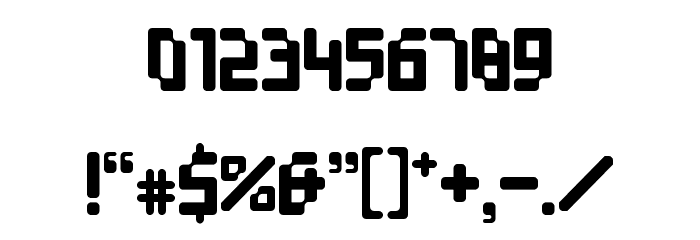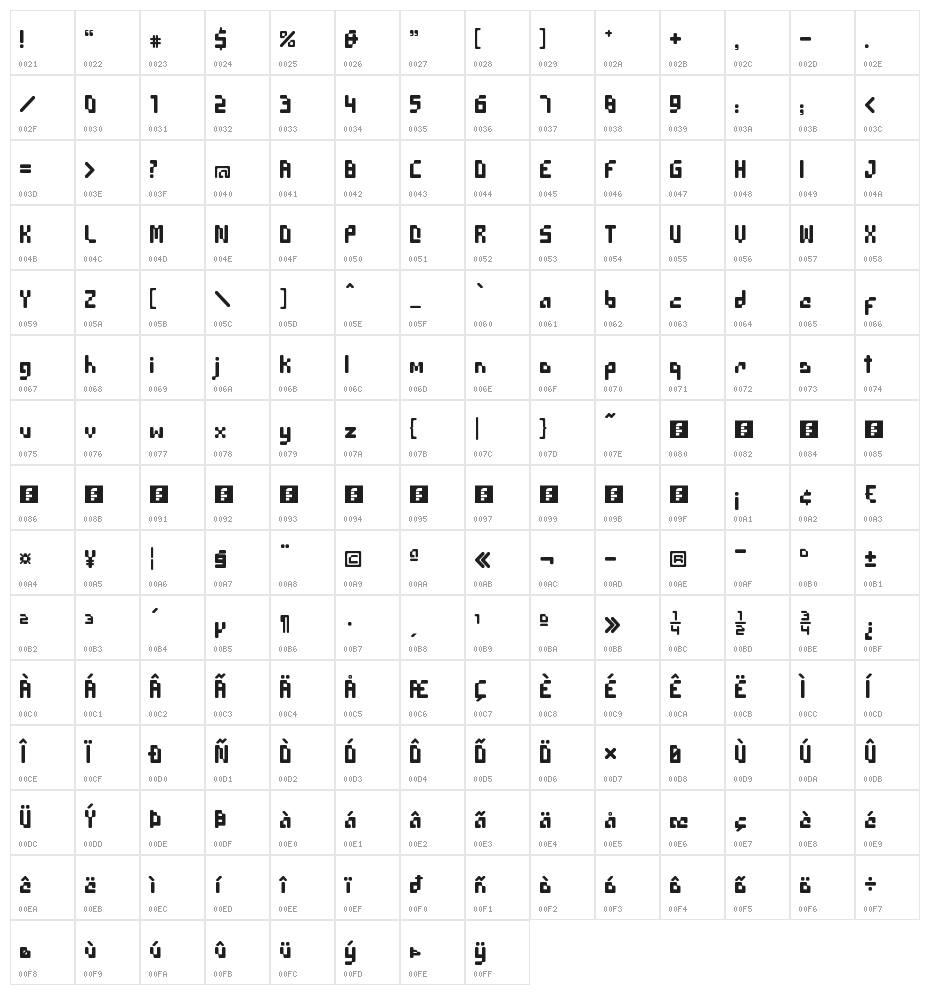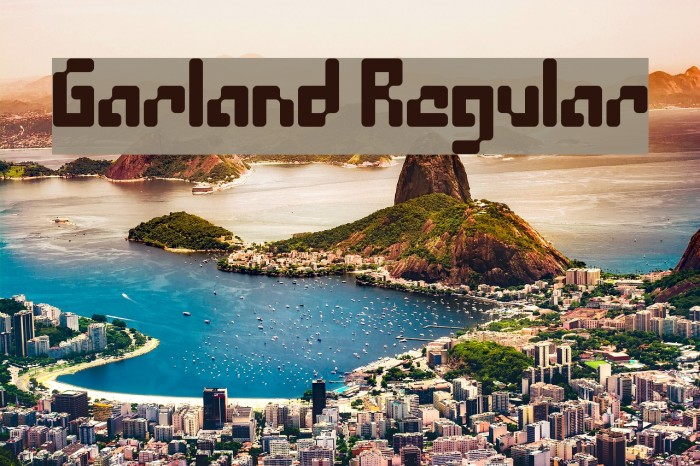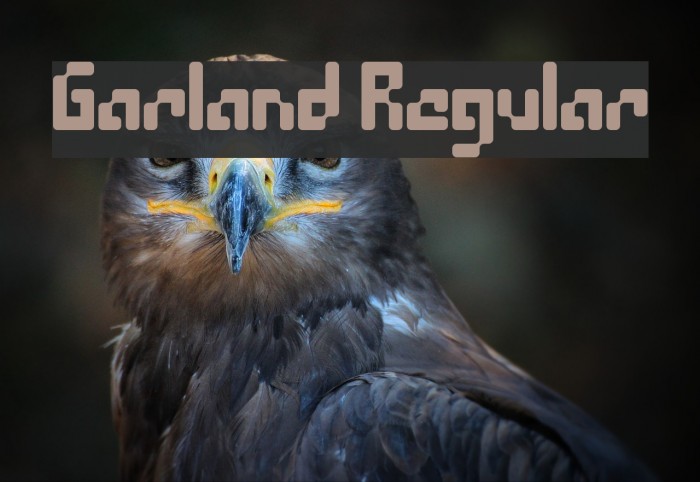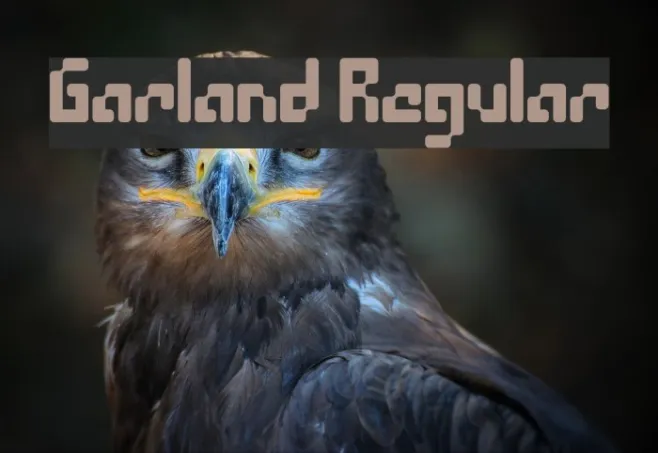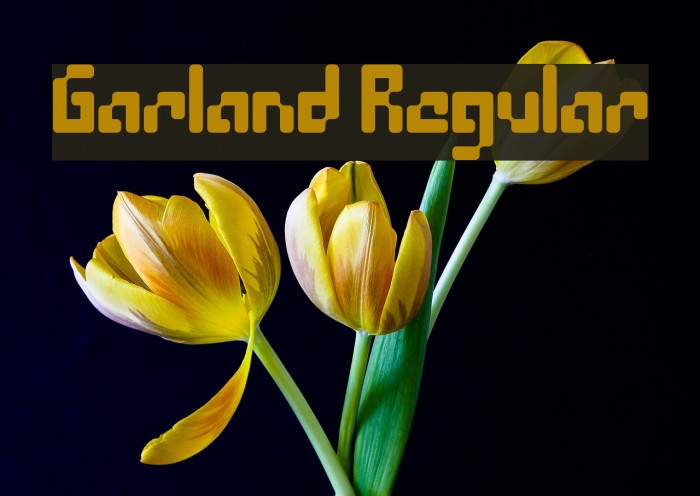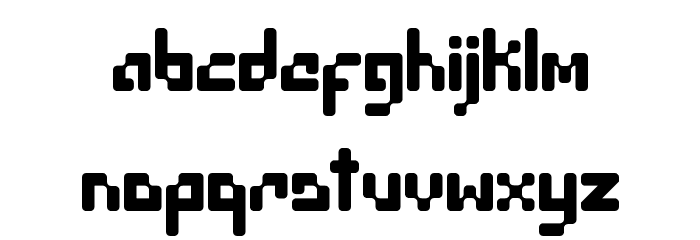
Garland Regular Font
Garland Regular Description
This font features a bold, geometric style with rounded edges, giving it a modern and playful appearance. The characters are uniformly thick, creating a strong visual impact. The uppercase and lowercase letters maintain a consistent height, contributing to a cohesive look. The numerals and special characters are designed to match the overall style, ensuring versatility across different uses. The font's unique design makes it suitable for creative projects that require a distinctive and eye-catching typeface.
| Proposed Projects | Ideal for branding, posters, headlines, and any project that requires a bold, modern aesthetic. |